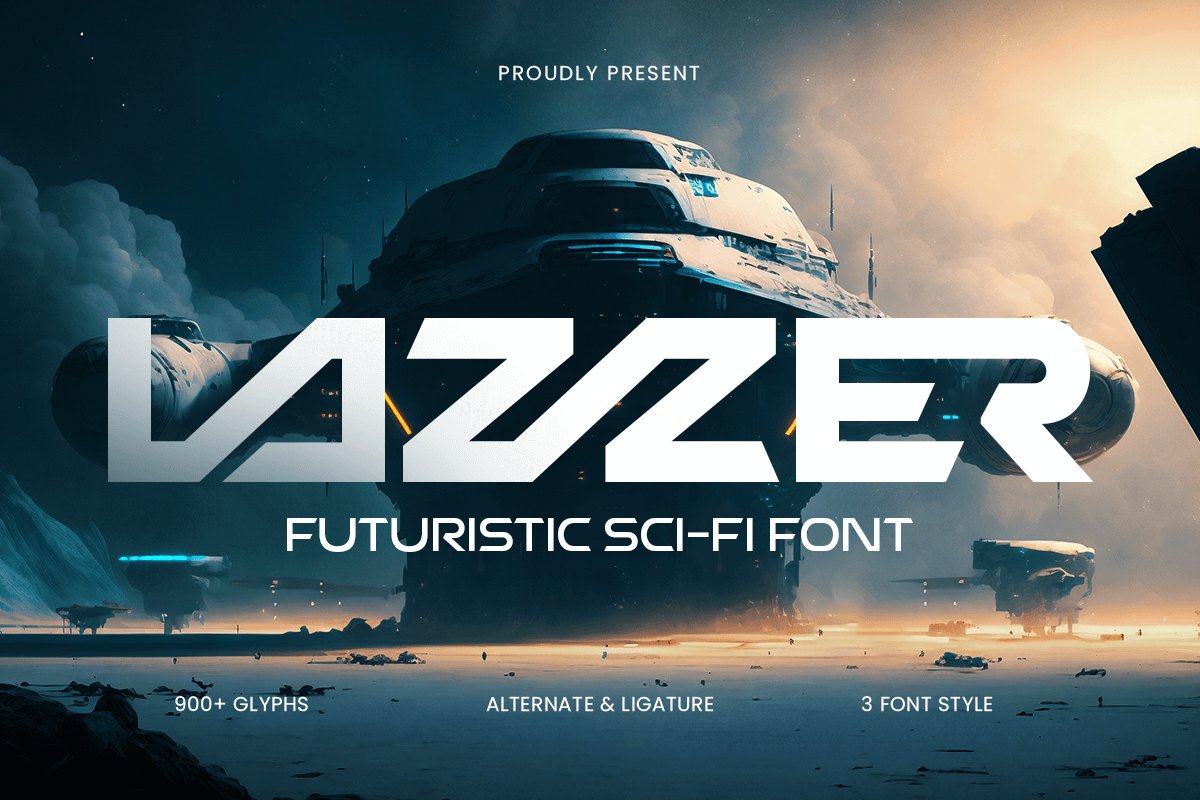
Lazzer
-Futuristic Sci-Fi Font
Lazzer - Futuristic Sci-Fi Font
LAZZER is a futuristic sci-fi font that combines modern aesthetics with a forward-thinking design. With its sleek, bold letterforms, LAZZER is perfect for creating high-tech branding, digital art, and sci-fi inspired visuals. The font is ideal for everything from logos and branding to digital artwork and gaming titles.
Its dynamic structure gives each letter a sense of motion, making it perfect for cutting-edge designs that need to stand out. Whether you're working on futuristic branding or creating digital art, LAZZER offers a bold, innovative typographic solution for your project.
LAZZER – Futuristic Sci-Fi Font Features
• Sleek, bold letterforms with a futuristic look
• Ideal for high-tech branding, sci-fi designs, and digital art
• Ready with 3 Weights to make it easy to create unique projects
• Modern, creative design with advanced typographic elements
• OpenType features for enhanced design flexibility